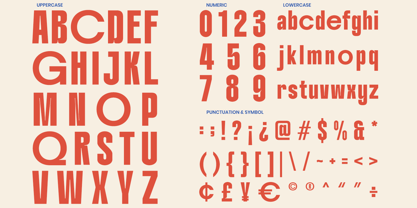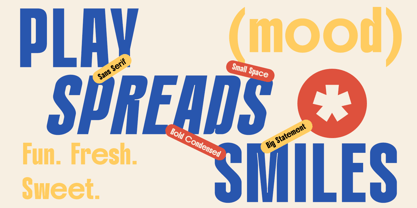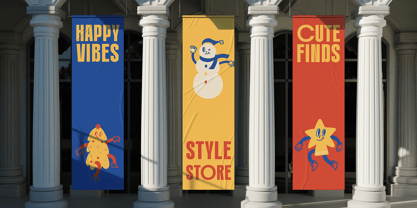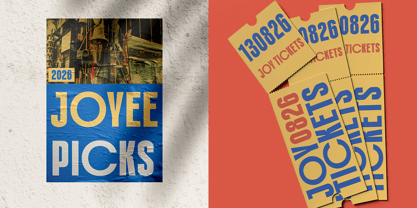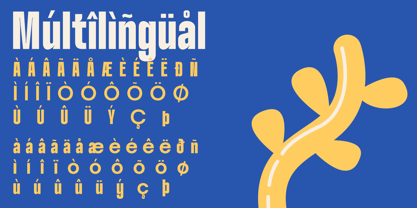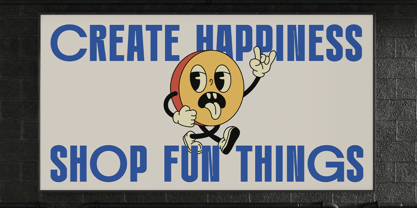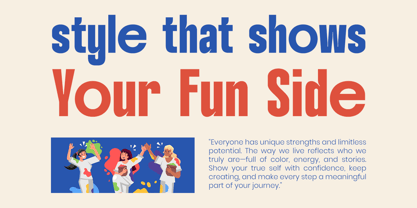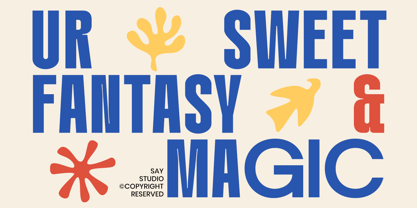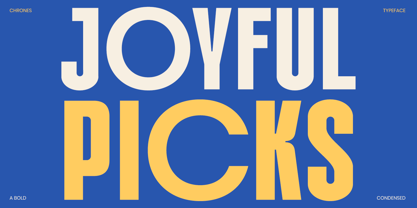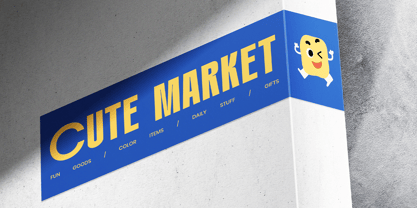
Chrones
Die Schriftfamilie Chrones wurde von Mussyayin entworfen und von Say Studio veröffentlicht. Chrones enthält 2 Stile und Familienpaketoptionen. Mehr über diese Familie
Meet Chrones, a bold condensed sans serif font built to command attention. With its tall structure, powerful weight, and clean geometric construction, Chrones is designed for creators who need typography that speaks loudly and clearly. Whether you're crafting impactful branding, energetic posters, sports campaigns, editorial headlines, or modern advertising visuals, this font delivers a strong visual punch with effortless readability.
Chrones blends modern minimalism with high-impact personality, making it a versatile typeface for professional and creative projects alike. Its condensed proportions help maximize space while maintaining strong presence, making it ideal for packaging, logo design, merchandise, social media graphics, tech branding, fitness campaigns, urban streetwear, and cinematic title treatments. The multilingual support and extensive glyph collection make it practical for international creative work.
If your project needs a bold, confident, and contemporary typeface that stands out instantly, Chrones is the perfect choice. Designed for high-performance visual communication, this font turns ordinary layouts into striking statements.
• Regular and Italic style
• Uppercase and Lowercase
• Number and Punctuation
• Multilingual Support
• Inktrap Style